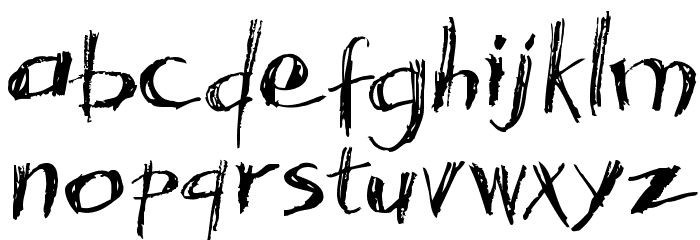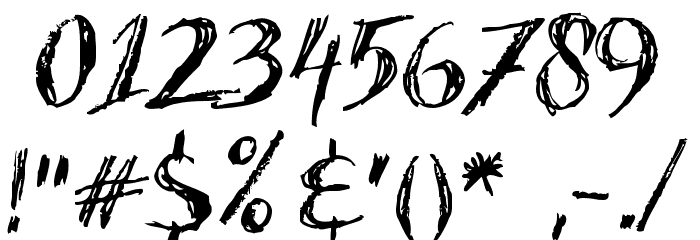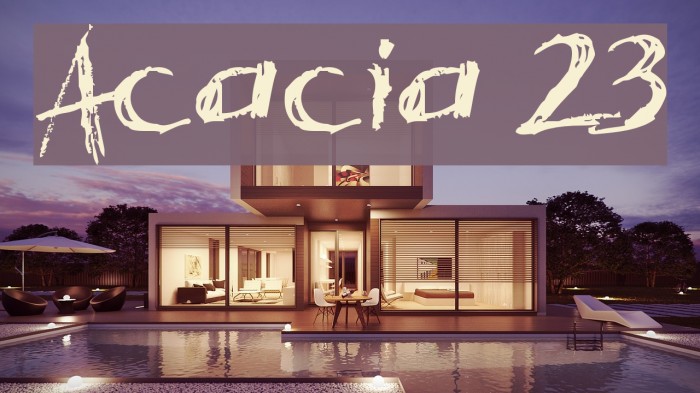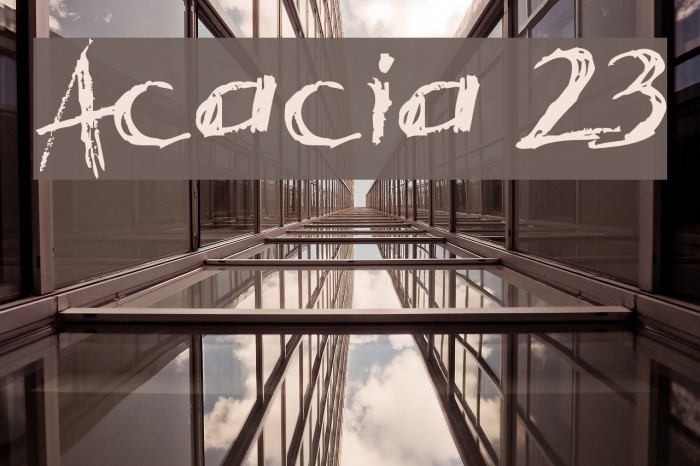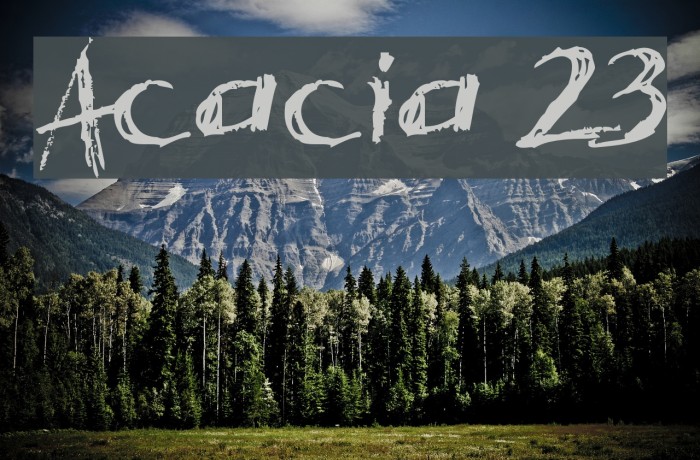
Acacia 23 Font
This font features a bold, expressive style with a hand-drawn, brush-like appearance. The characters are irregular and dynamic, giving a sense of movement and energy. The strokes are uneven, with varying thicknesses that create a raw, artistic look. This font is highly decorative, making it ideal for creative projects that require a strong visual impact. The uppercase and lowercase letters maintain a consistent style, while the numerals and special characters complement the overall aesthetic. The font's unique design makes it stand out, perfect for projects that aim to capture attention and convey a sense of creativity and individuality.
A bold, brush-like font with an expressive, hand-drawn style.
- Proposed Projects: Ideal for posters, album covers, artistic branding, and creative advertising.